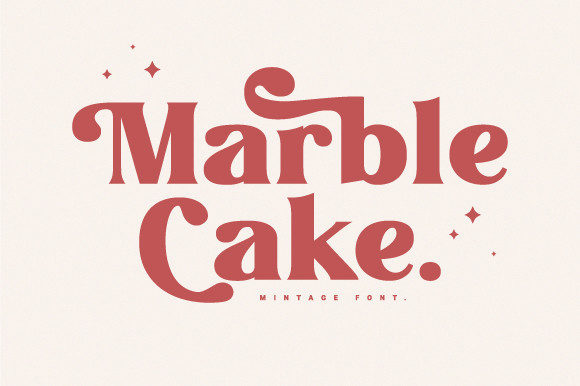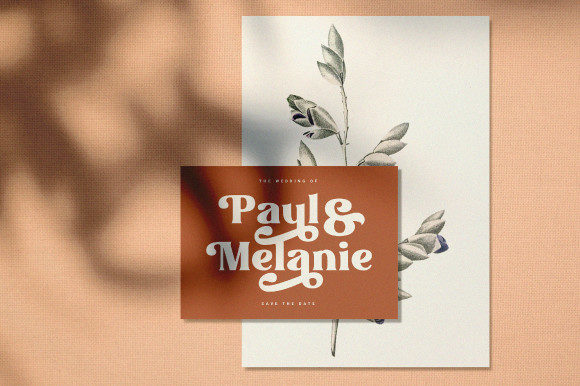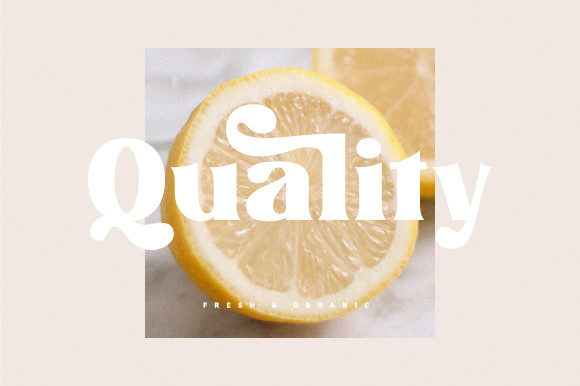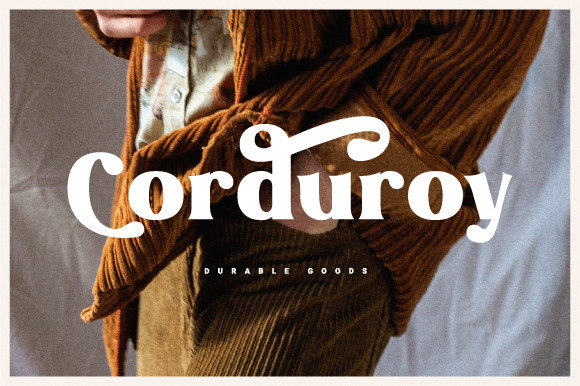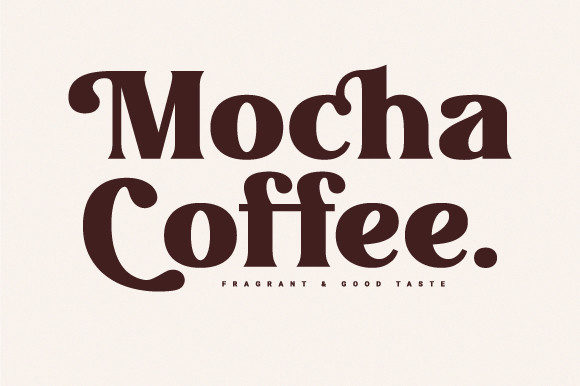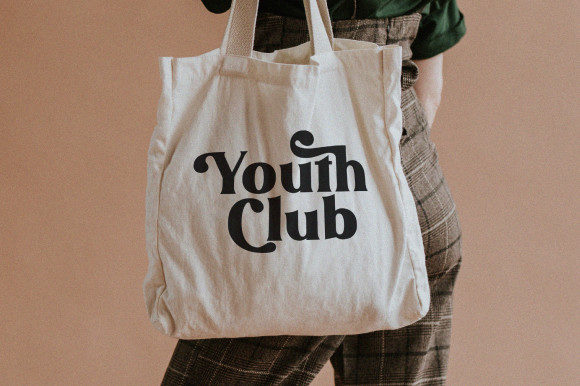
Introduction to Mintage Font
As designers, we’ve all been there – staring at a blank canvas, trying to bring our creative vision to life. But sometimes, all it takes is the right tool to spark inspiration. For me, that moment came when I stumbled upon the Mintage Font. Its sleek, sophisticated lines and elegant curves immediately captured my attention, and I knew I had to learn more.
With its PUA encoding, accessing all of the glyphs and swashes is a breeze, allowing me to unleash my creativity without any limitations. Whether I’m working on a high-end branding project or a simple design concept, Mintage Font has become my go-to resource. Its high quality and versatility make it an invaluable asset for any designer, and I’m excited to share its benefits with you.
Key Features of Mintage Font
- High-quality, professional font designed for creative projects and professional use.
- Unique, hand-drawn design with a modern and elegant feel, perfect for adding a touch of sophistication to any project.
- Designed as a versatile design resource, suitable for a wide range of creative projects, from logos and branding to editorial and advertising.
Honest Review: Mintage Font
One of the standout features of Mintage Font is its high-quality design, which makes it perfect for any creative project that requires a touch of elegance. The font comes with a transparent background, allowing you to easily integrate it into your design without any hassle.
While the Mintage Font is overall a great resource, there are a few limitations to consider:
- ⚠️ Limited customization options
- ⚠️ May not be suitable for very complex designs
Overall, I’m impressed with the Mintage Font and would definitely recommend it to fellow designers looking for a high-quality font for their creative projects. Its ease of use, elegant design, and free download make it a valuable addition to any design resource collection.
Mintage Font
For the best results, use the Mintage Font on a transparent background to make it stand out. You can also use it for creative projects such as logos, posters, and business cards. The high-quality design of the font makes it perfect for any design resource.